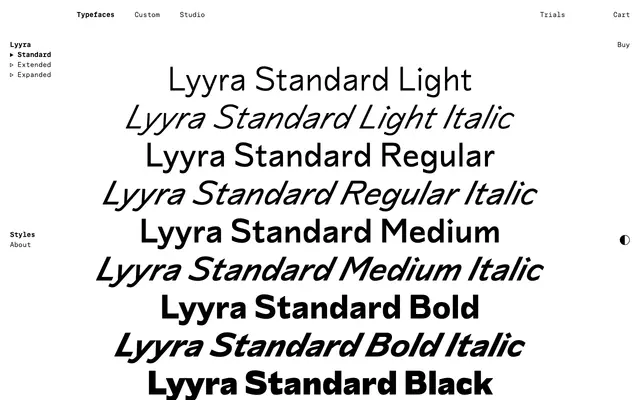
Lyyra Standard
The standard width of Lyyra: an expressive sans in five weights with italics, with petalled counters and vertically cut endings.
Lyyra Standard is the default width of the Lyyra system. The foundry frame it as a self-confident face for mixed-case editorial work that can acquire monumental qualities when set in all caps. Five weights from Light to Black with matching italics carry the family's signature petalled counters, high-waisted caps and vertically cut stroke endings. The OpenType feature set covers lining, oldstyle, tabular and sub-/superscript figures plus fractions, and round dot alternates replace the default diamond dots where needed.
The default width of Lyyra; in capitals it can acquire monumental qualities, in mixed case it reads as a self-confident face suitable for editorial design and beyond.